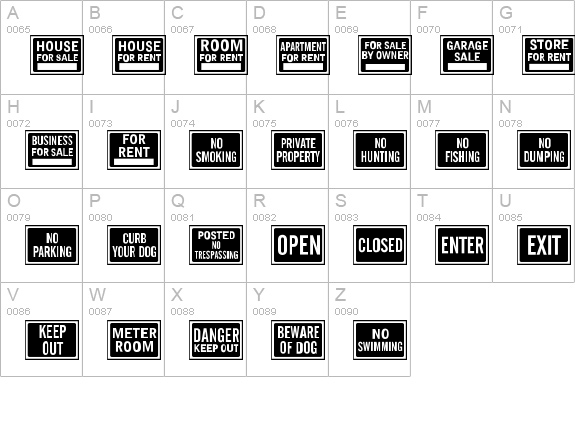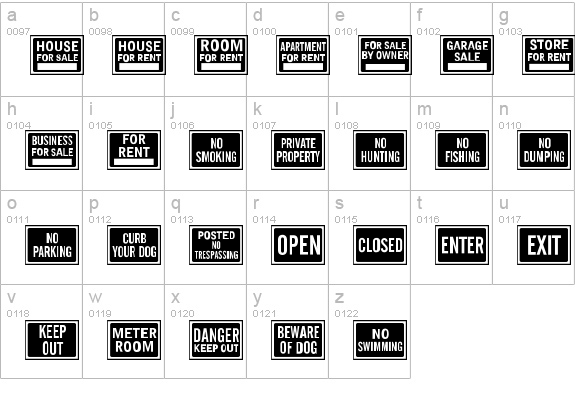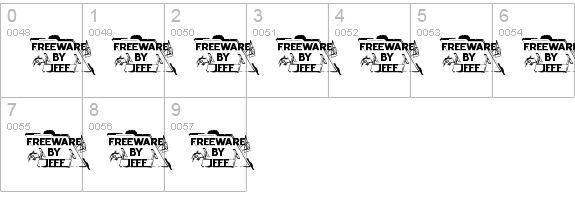
All-Purpose Signs JL Font Details
All-Purpose Signs JL font is a versatile and eye-catching typeface that is perfect for a wide range of design projects. With its clean lines and unique style, this font is sure to make a statement. Whether you're creating signage, posters, or branding materials, All-Purpose Signs JL font will add a touch of elegance and sophistication to your work. The best part about this font is that it is completely free to download at FontsMarket.com. You can easily access this font and use it in your projects without any cost. So why wait? Download All-Purpose Signs JL font today and take your designs to the next level.